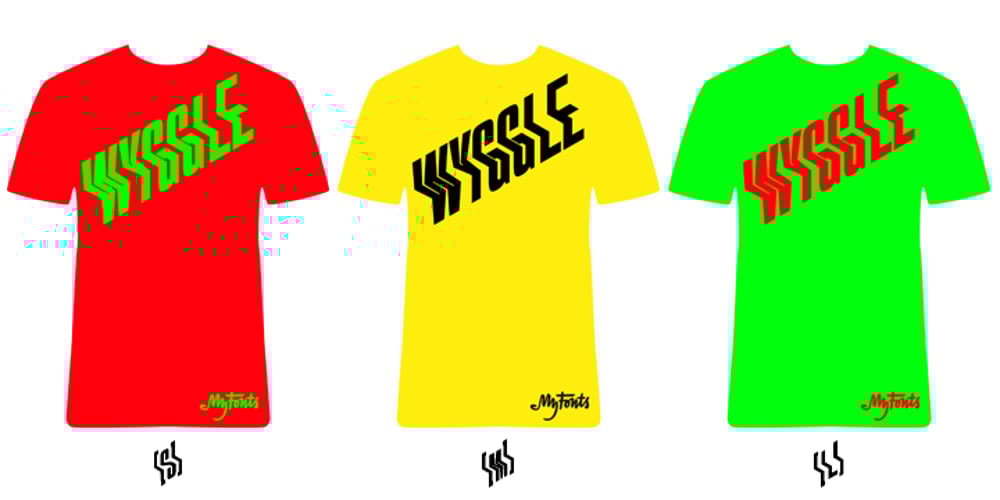
AT Move Wyggle
AT Move Wyggle font
AT Move Wyggle Font Family was designed by André Toet, Jasper Nijssen and published by André Toet Design. AT Move Wyggle contains 1 styles and family package options. WYGGLE is a dynamic (capital) font taken from my Alphatool project. It’s an interesting typeface which can be used for interior and/or exterior (3D projects). Concept/Art Direction/Design: André Toet © 2017